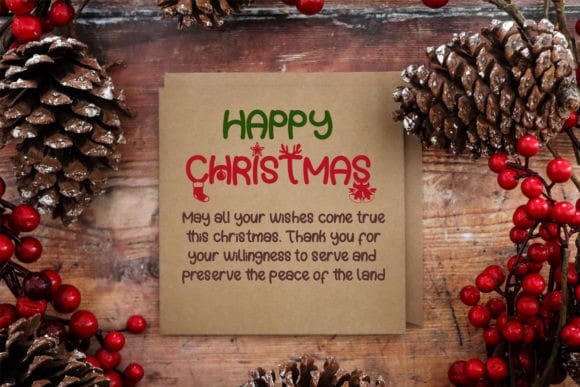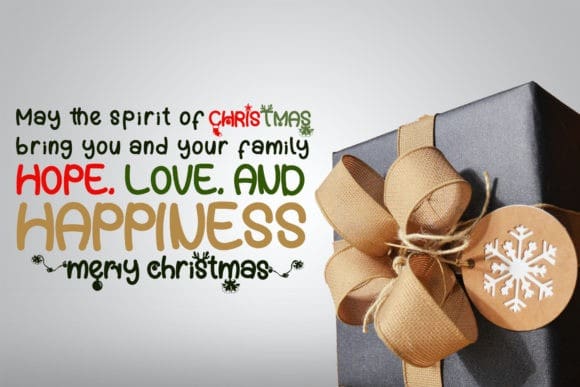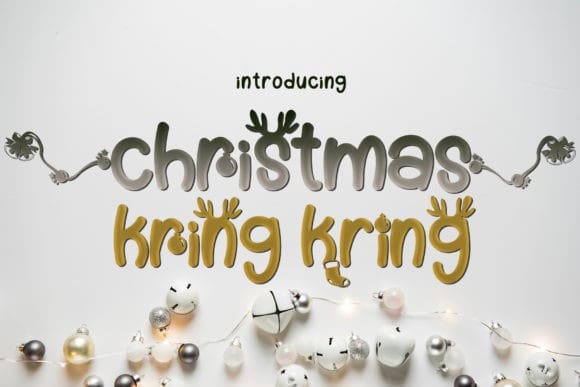
Christmas Kring Kring Font
Christmas Kring kring Font is a lovely, festive and wintery decorative font. It is PUA encoded which means you can access all of the glyphs and swashes with ease!